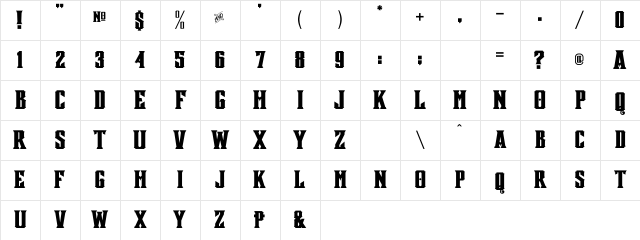
Mestizo Font Normal
Design Context for Mestizo Font
Mestizo Font is a composed and adaptable typeface that performs quietly and consistently across a wide range of design contexts.